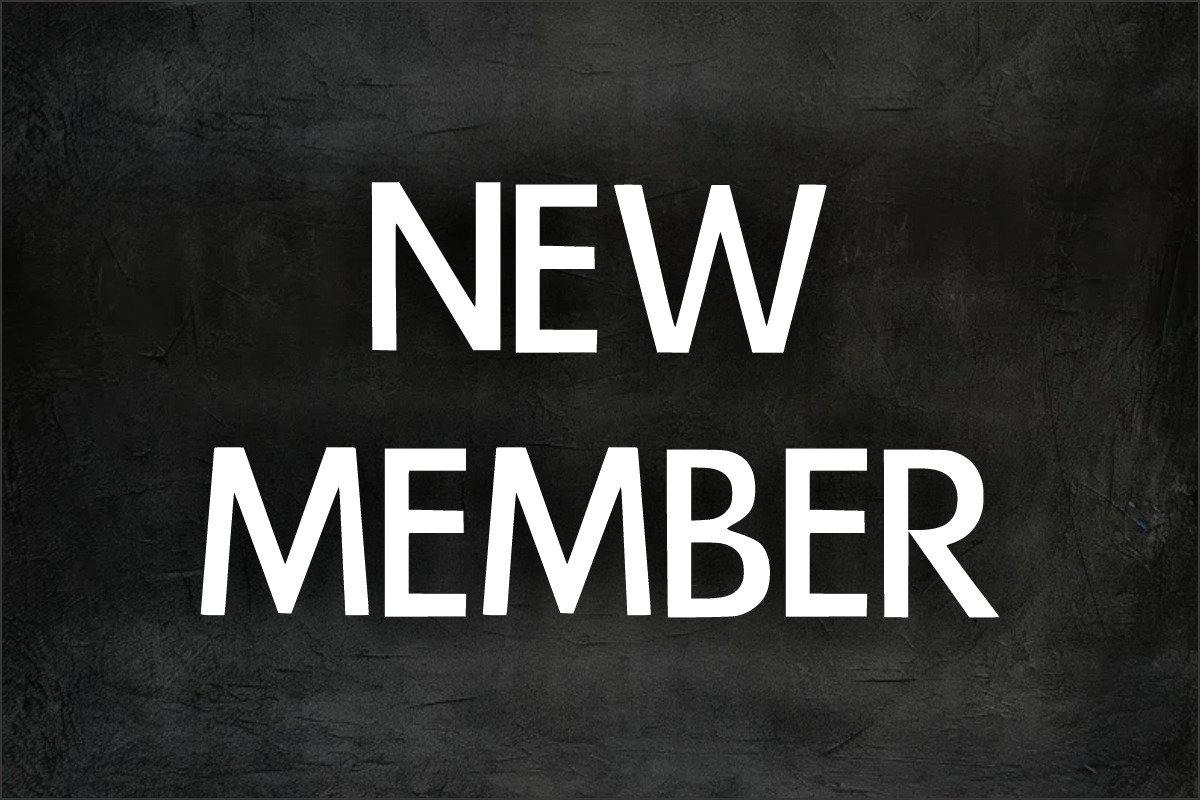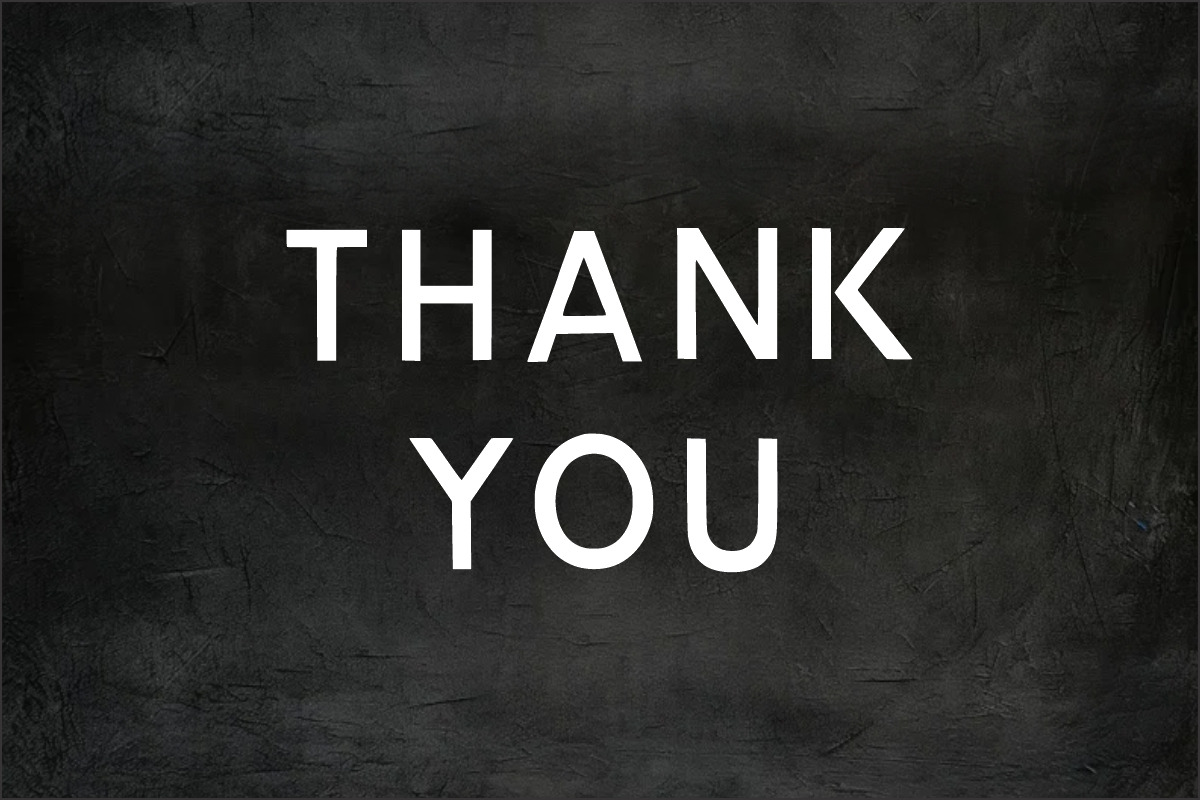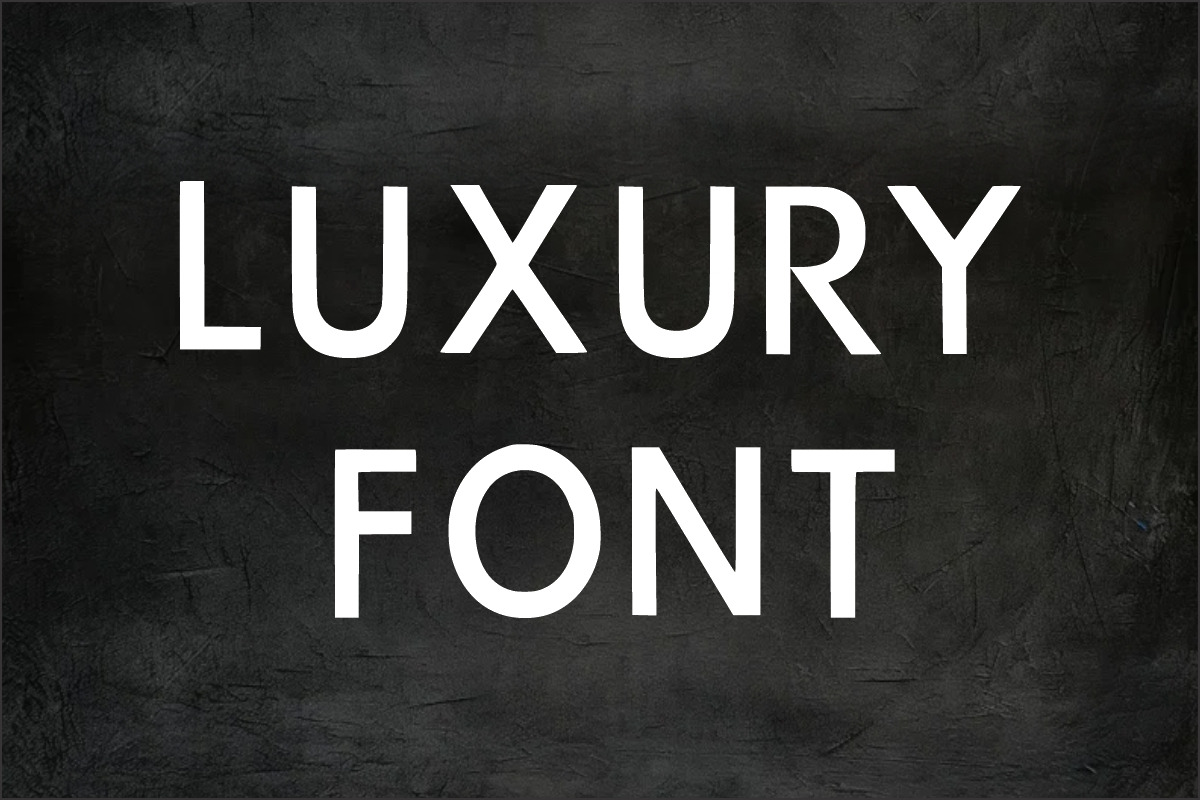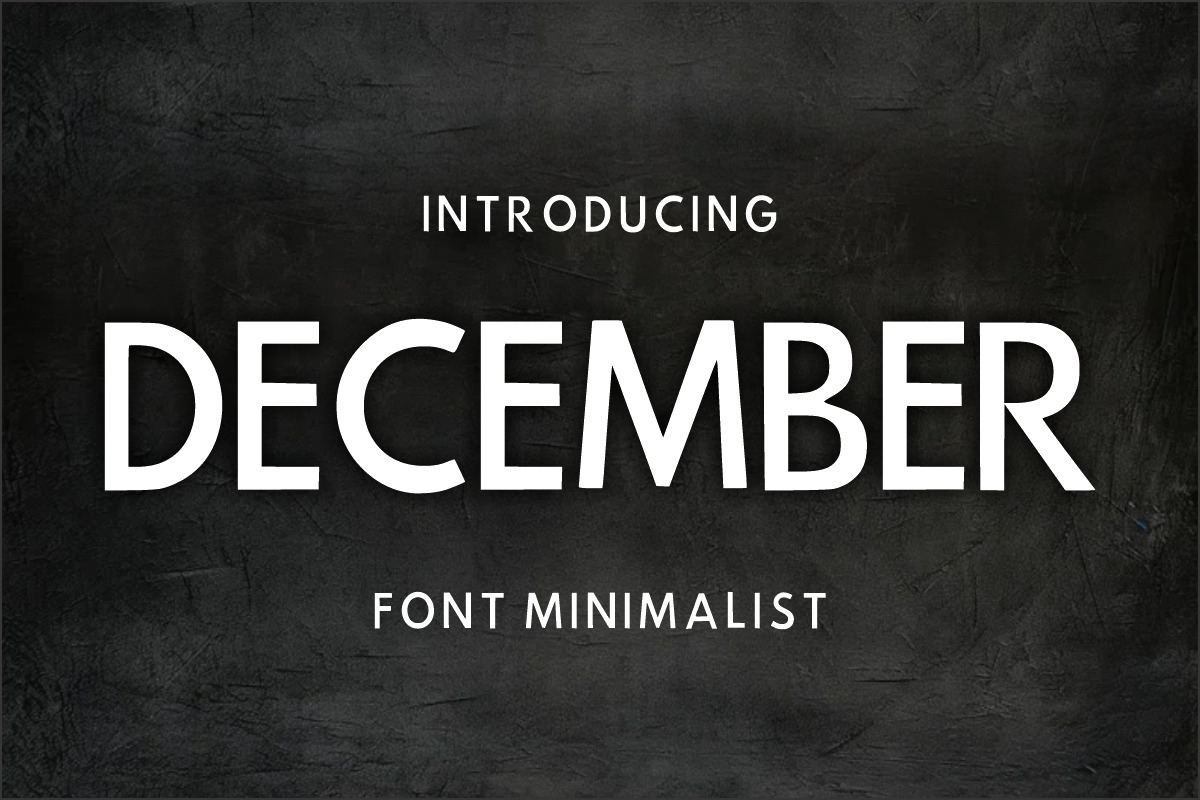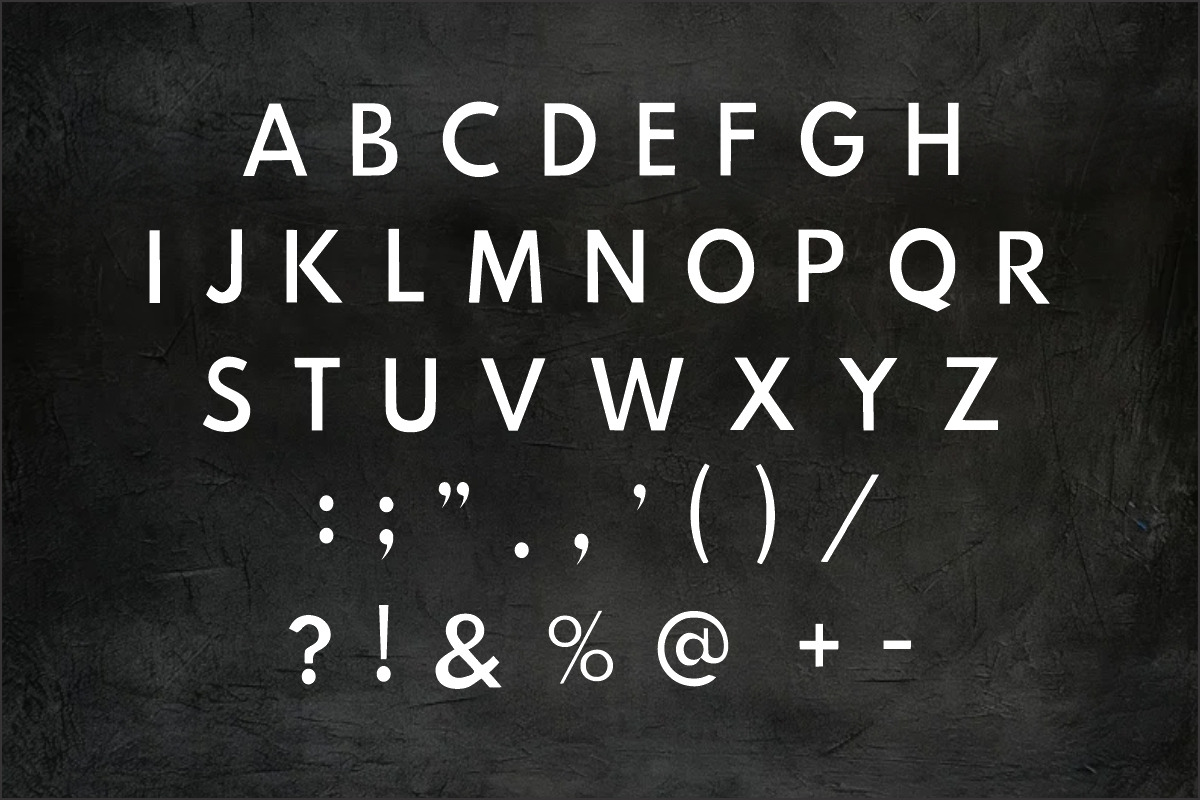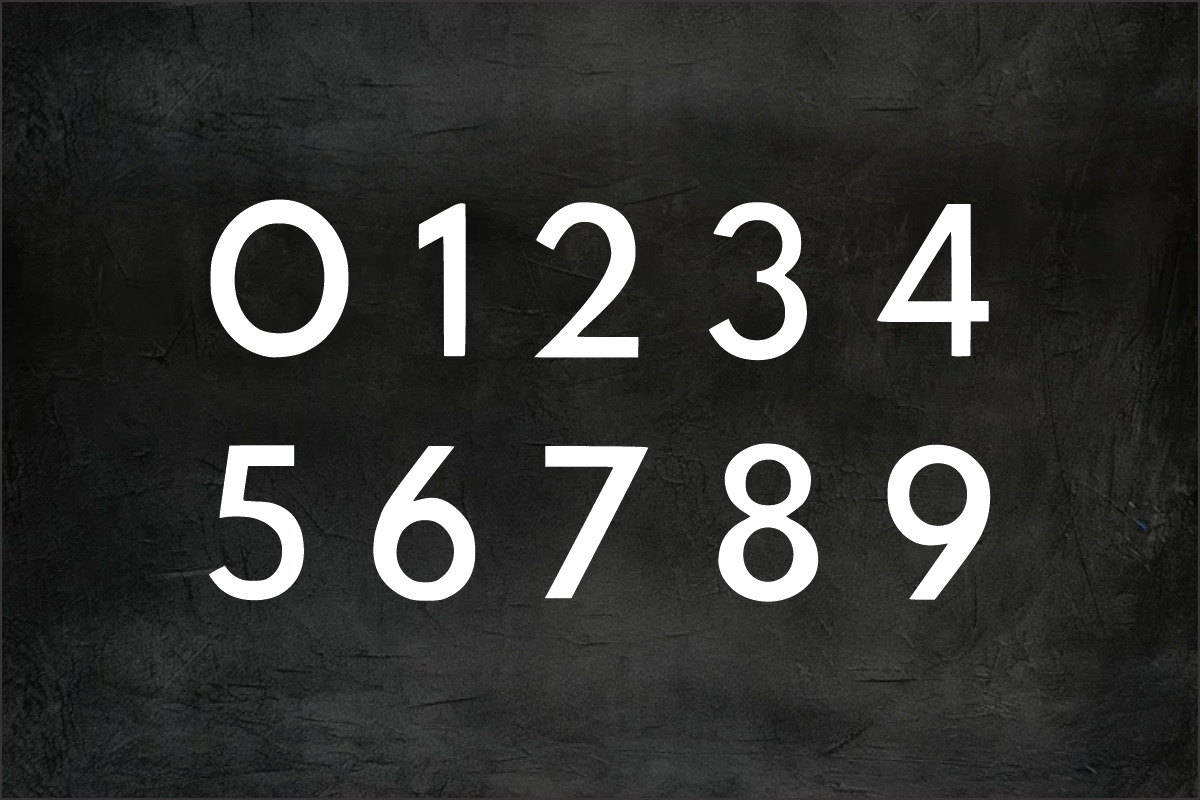
December display font
December typeface is a bold, modern, simple, elegant sans-serif display font.
December's informal style and casual vibe will make this font a go-to choice for each of your creations that require a relaxed touch. It is suitable for any product packaging, invitation, quote, t-shirt, label, poster, or logo that you wish to develop!